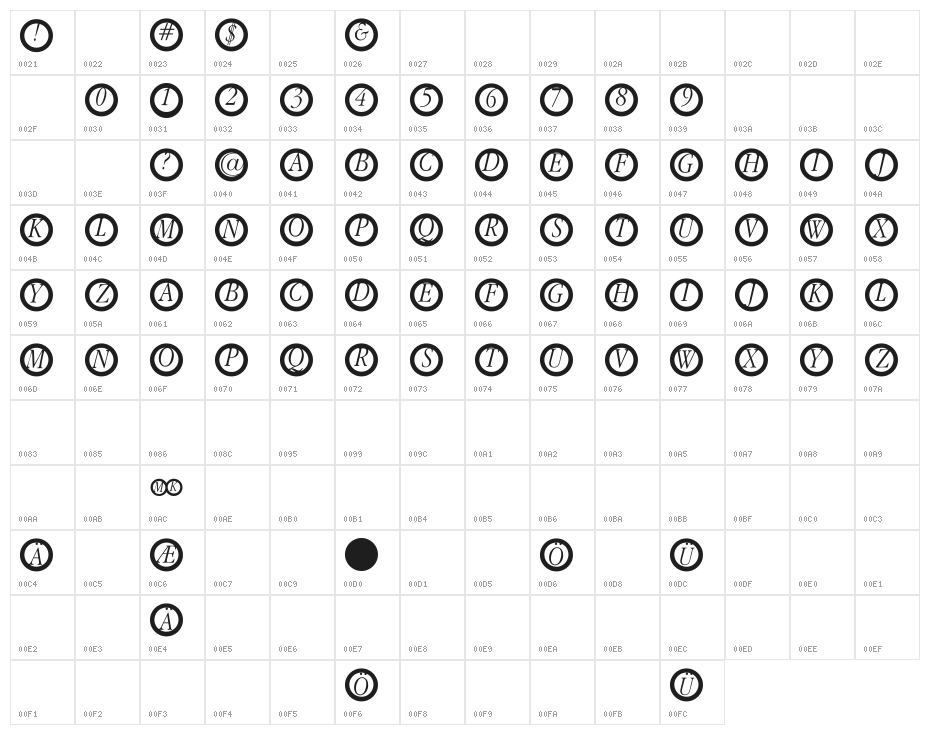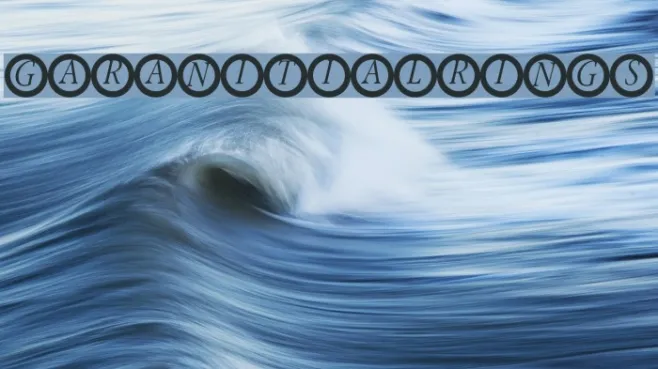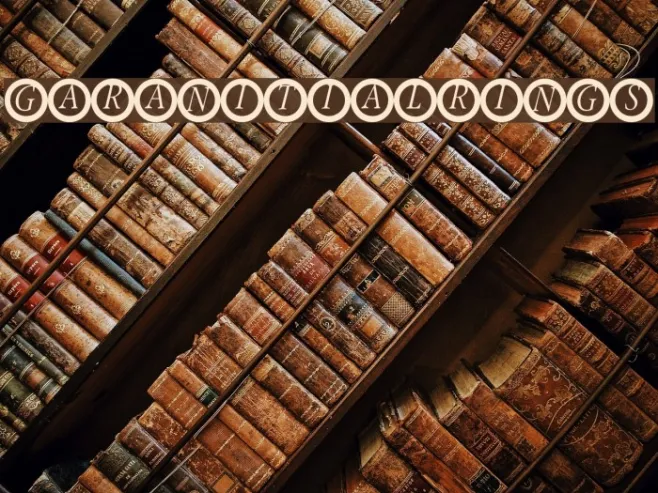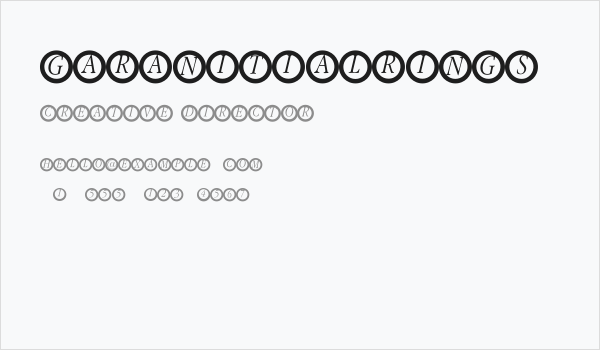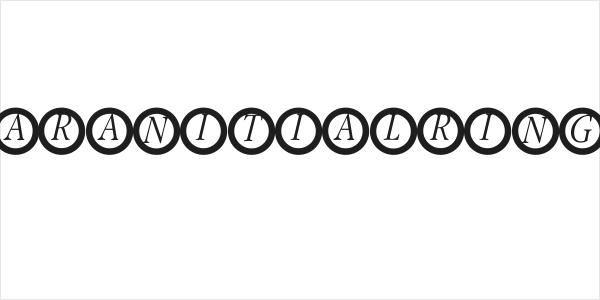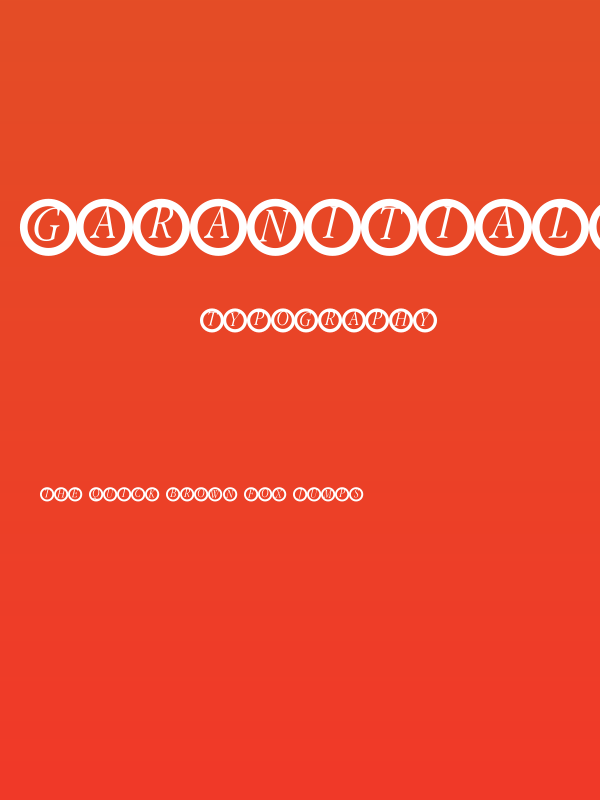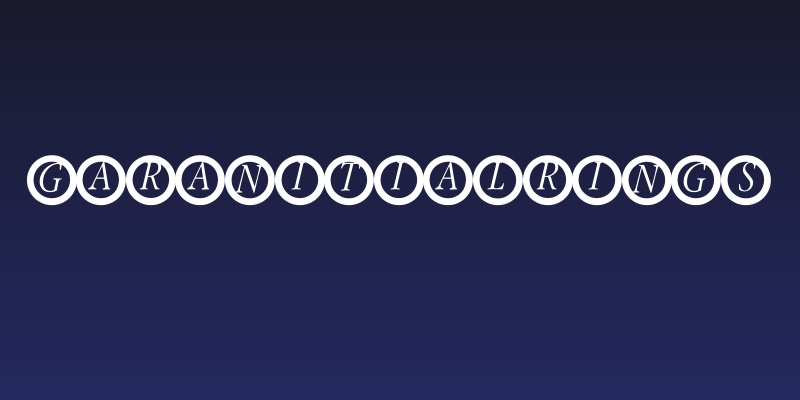
GaranitialRings Font
GaranitialRings Description
This font features a unique design where each character is encased within a bold circular outline, creating a striking visual effect. The letters themselves are italicized, adding a sense of elegance and movement. The combination of the bold circles and the italicized characters gives this font a distinctive and modern appearance. The numbers and special characters follow the same design, ensuring consistency across all elements. This font stands out due to its decorative nature, making it ideal for projects that require a bold statement.
Proposed ProjectsIdeal for logos, branding, posters, and any design requiring a bold, decorative touch.